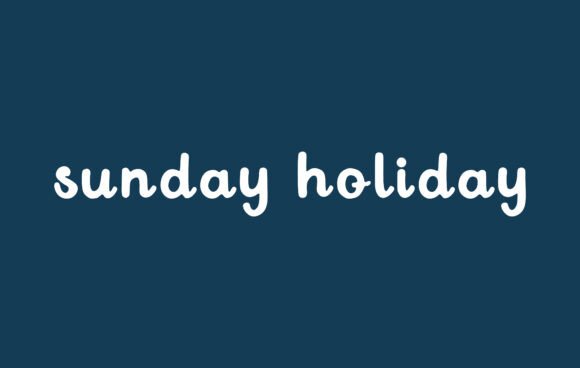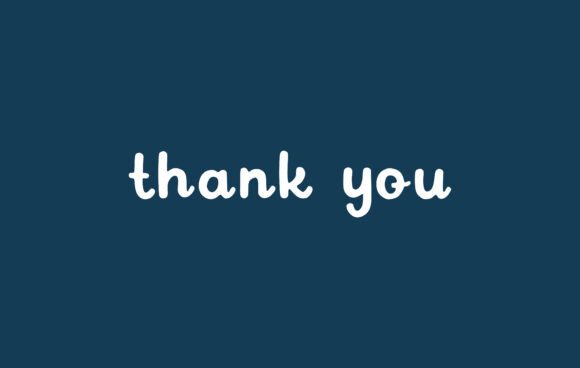
Introduction to Quigley Font
Have you ever been stuck in a creative rut, staring at a blank page, desperate for that one font that will bring your idea to life? For designers, finding the perfect font can be a game-changer. And that’s exactly what we’re excited to share with you today – a font that’s been making waves in the design community: the Quigley Font.
This authentic handwritten font is a true gem, offering a romantic touch that’s perfect for a wide range of creative projects. Whether you’re working on a magazine headline, a social media campaign, or a wedding invitation, the Quigley Font is sure to elevate your design to the next level.
Key Features of Quigley Font
- High-quality design resource for creative projects, offering a unique and stylish aesthetic.
- Quigley Font is an excellent choice for designers seeking a versatile and professional-looking font for their creative projects.
Honest Review: Quigley Font
I recently stumbled upon the Quigley Font, a free download that has been a game-changer for my latest creative project. This font has been a fantastic addition to my design resource library, offering a unique and stylish aesthetic that sets my work apart.
What works well with the Quigley Font is its versatility and high quality. The font is incredibly detailed, with smooth lines and crisp typography that make it perfect for a variety of applications, from headings to body text. The transparent background feature also makes it easy to layer and manipulate the font in my designs.
- ✨ Unique and stylish aesthetic
- ✨ High-quality details and crisp typography
- ✨ Versatile and suitable for various design applications
- ✨ Transparent background feature for easy manipulation
While the Quigley Font is an excellent addition to any designer’s library, there are a few limitations to keep in mind. ⚠️ The font may not be suitable for extremely small or large font sizes, and the transparent background feature can sometimes be a bit finicky to work with.
Overall, I’m thoroughly impressed with the Quigley Font and would highly recommend it to fellow designers. Its unique style, high quality, and versatility make it a valuable asset for any creative project.
Some tips for getting the most out of the Quigley Font include using it in conjunction with other high-quality design elements and experimenting with different font sizes and colors. Common use cases for the Quigley Font include creating graphics for social media, designing business cards, and creating presentations.